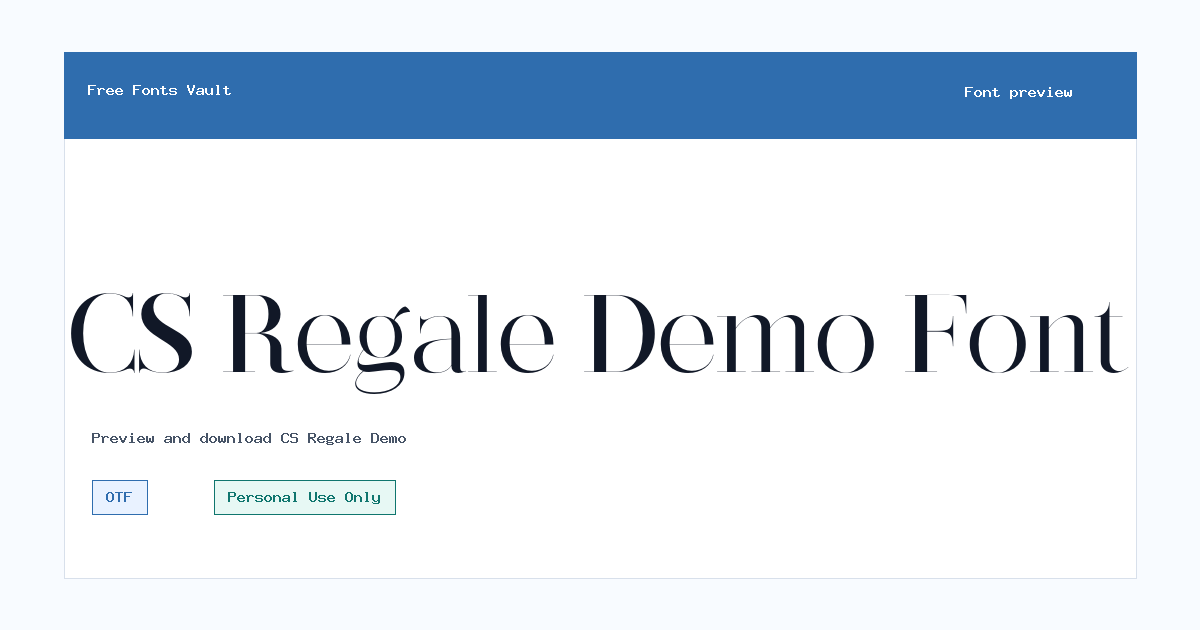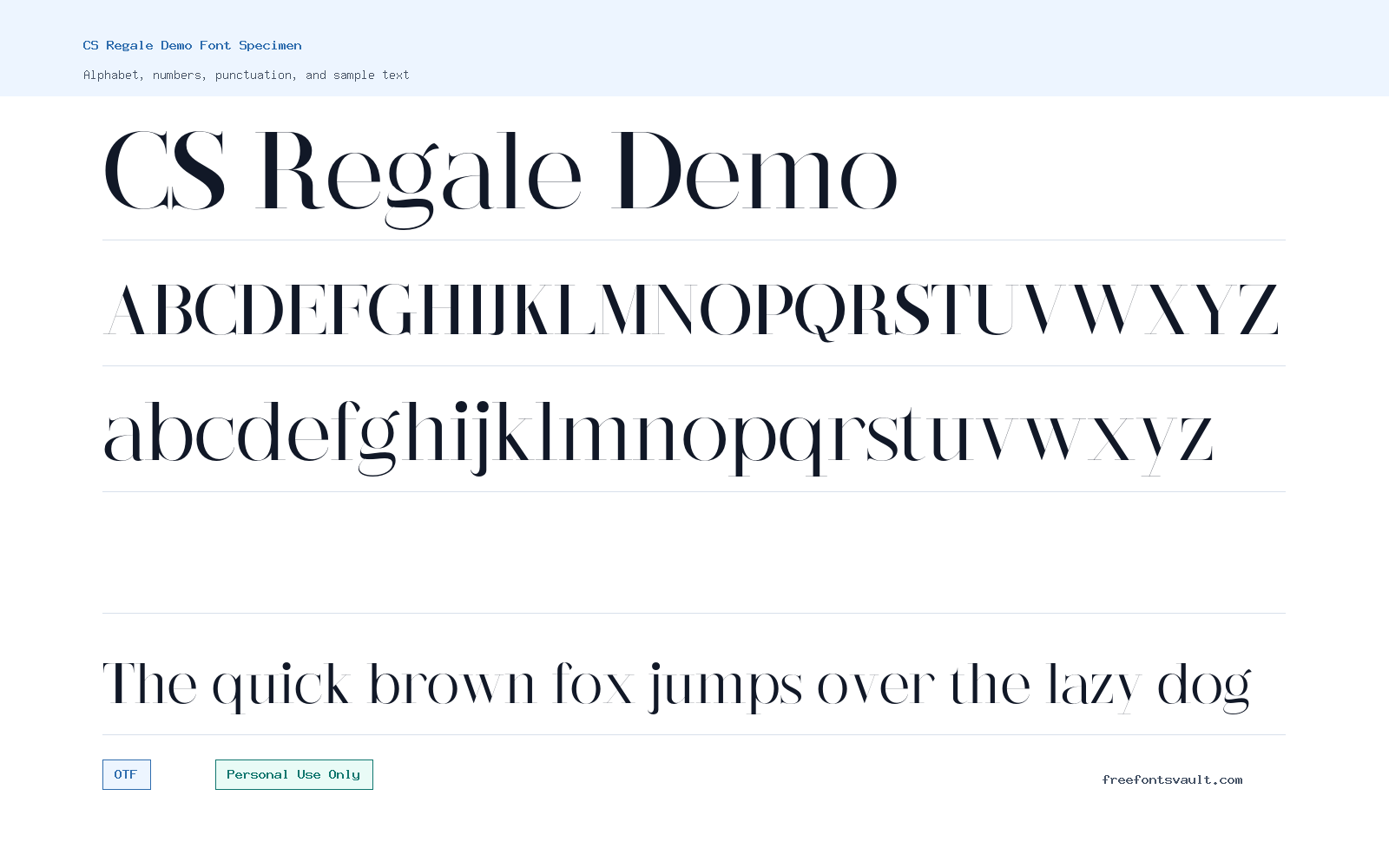
CS Regale Demo
CS Regale Demo font preview showing the family name
CS Regale Demo Font
CS Regale Demo font specimen showing alphabet, numbers, and sample text
CS Regale Demo font.
CS Regale Demo is a serif display font with a refined, polished feel. It is best approached as a font for short, expressive text rather than long reading passages, especially when you want a title, logo draft, poster headline, or brand mockup to feel more elegant.
About CS Regale Demo
For design work, CS Regale Demo should be used where the font can have room to breathe. Serif display faces often look strongest at larger sizes, where the letter shapes can be seen clearly. Use it for logos, title cards, packaging concepts, invitations, social graphics, book-cover studies, and website hero mockups. It may be less comfortable for dense body text, small navigation labels, or long paragraphs, so pair it with a clean, neutral sans serif or a simple text serif for supporting copy. In a layout, let CS Regale Demo handle the main phrase and keep the secondary text quieter. That contrast will usually make the design easier to read and more balanced.
If you are testing it for logo work, preview the exact name in uppercase, lowercase, and title case. Some serif fonts change character a lot depending on capitalization, and a logo can feel more formal, softer, or sharper with only a small change in case. Also check common brand details such as ampersands, apostrophes, numerals, and short taglines. For poster and web mockup use, test the font at several sizes and avoid crowding the letters too tightly until you know how the spacing holds up. A little extra tracking can help display serif fonts feel more deliberate, but too much spacing may weaken word shapes.
• Regular-weight serif demo font in OTF format, suitable for testing elegant display typography.
• Works best for short text settings such as titles, logo drafts, poster headings, invitations, packaging concepts, and website hero mockups.
• A strong candidate for pairing with restrained sans serif body text, simple captions, and minimal layout elements.
• Logo concepts and brand-name previews where a refined serif style is needed.
• Poster titles, editorial headlines, invitation text, and social media graphics with short wording.
• Packaging mockups, product label studies, book-cover drafts, and presentation visuals.
• Website hero mockups or landing page concepts where the headline needs a more formal serif voice.
Use CS Regale Demo at larger sizes first, then check smaller settings only if your layout needs them. It is better suited to display typography than long reading text. For clean layouts, pair it with a plain sans serif for body copy, menus, captions, and technical details. For logo and poster testing, preview your exact wording, numerals, punctuation, and tagline before committing to the design.
What kind of designs is CS Regale Demo good for?
It is best for short display text such as logos, headlines, posters, invitations, packaging concepts, book-cover drafts, and website hero mockups.
Can I use CS Regale Demo for body text?
You can test it, but it is safer to use it for headings and short phrases. For long paragraphs, pair it with a simpler, highly readable text font.
How should I pair CS Regale Demo with other fonts?
Pair it with a neutral sans serif or a quiet text serif. Let CS Regale Demo carry the headline or logo text, then use the simpler font for paragraphs, captions, buttons, and supporting information.